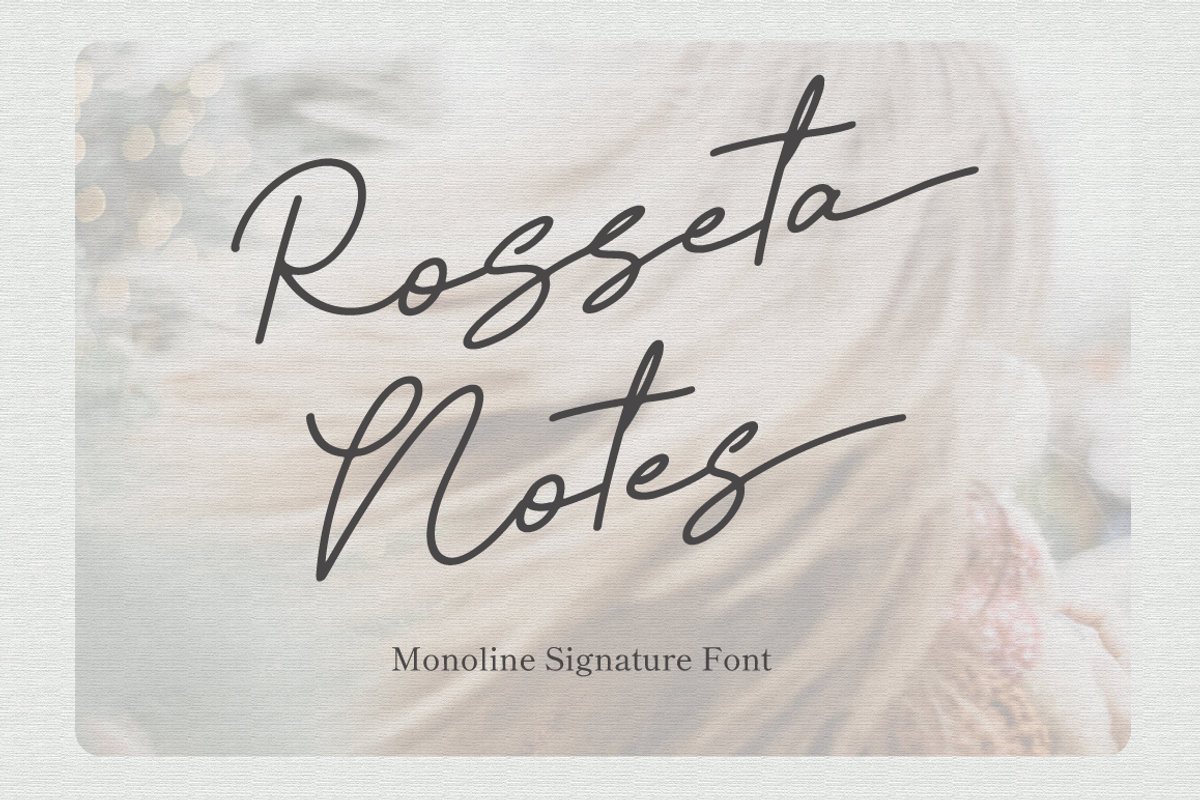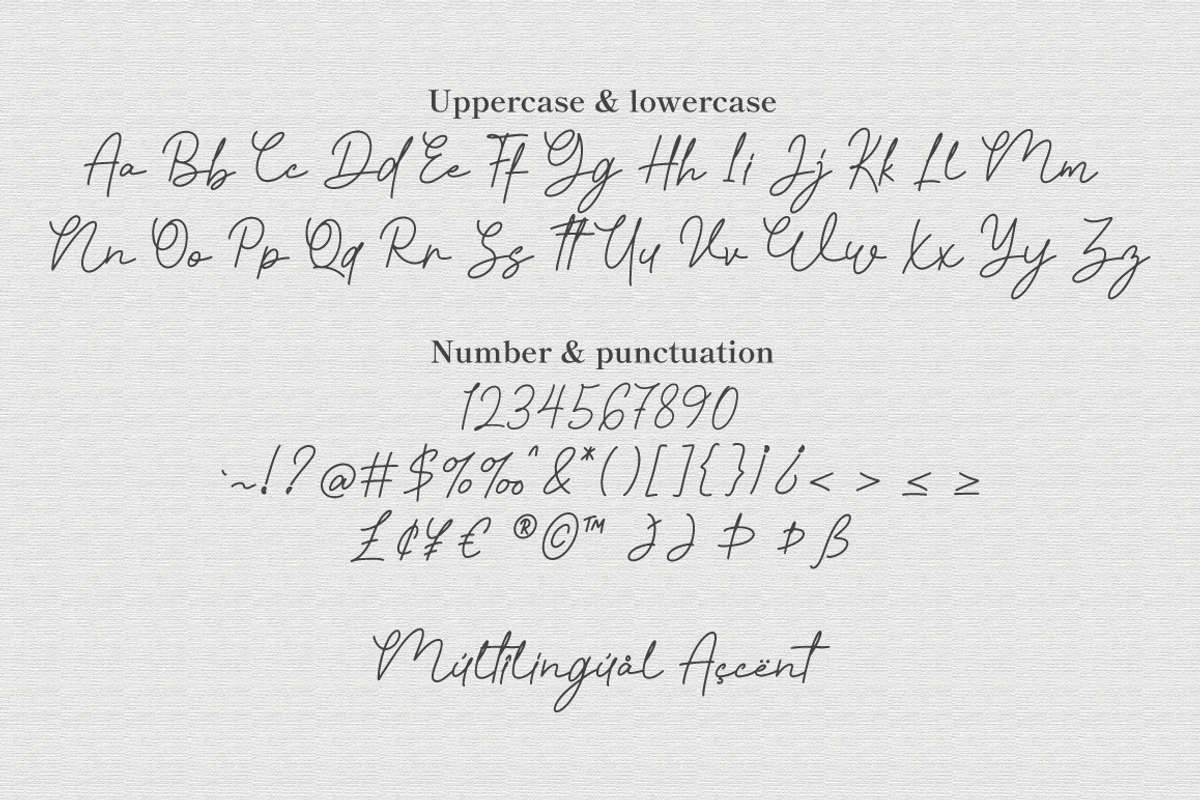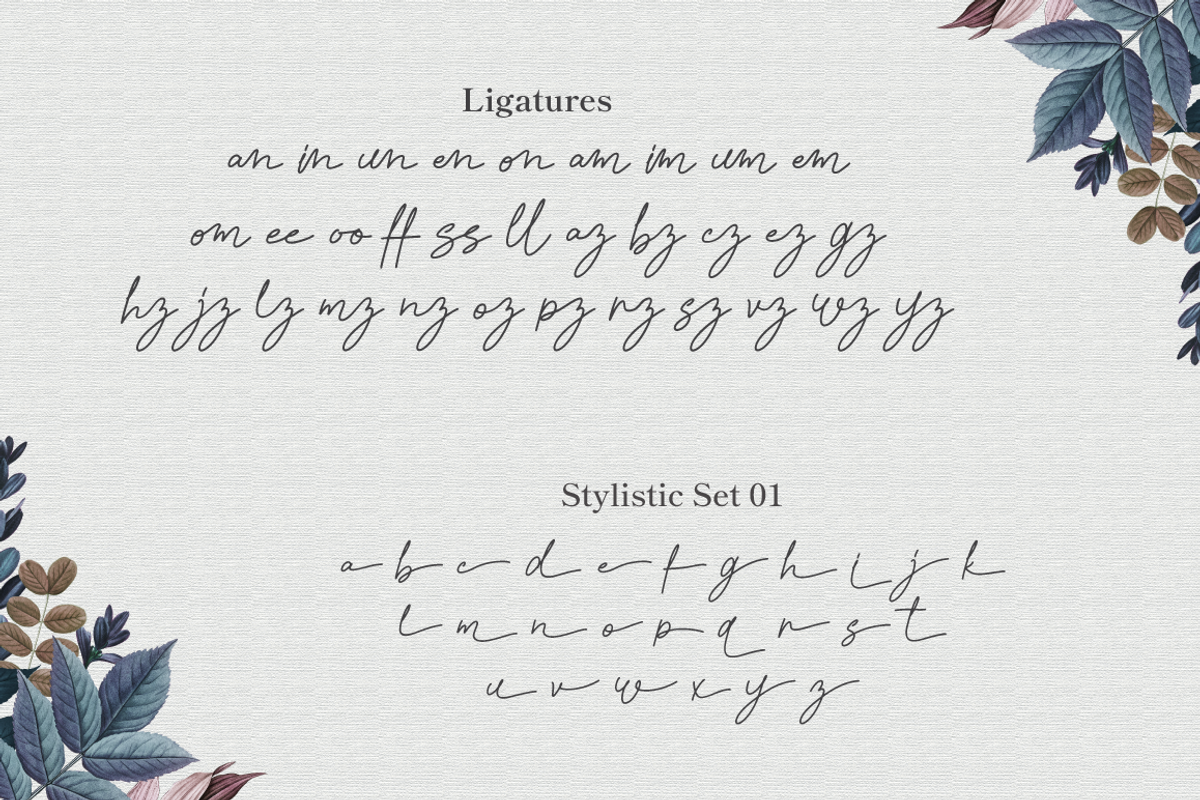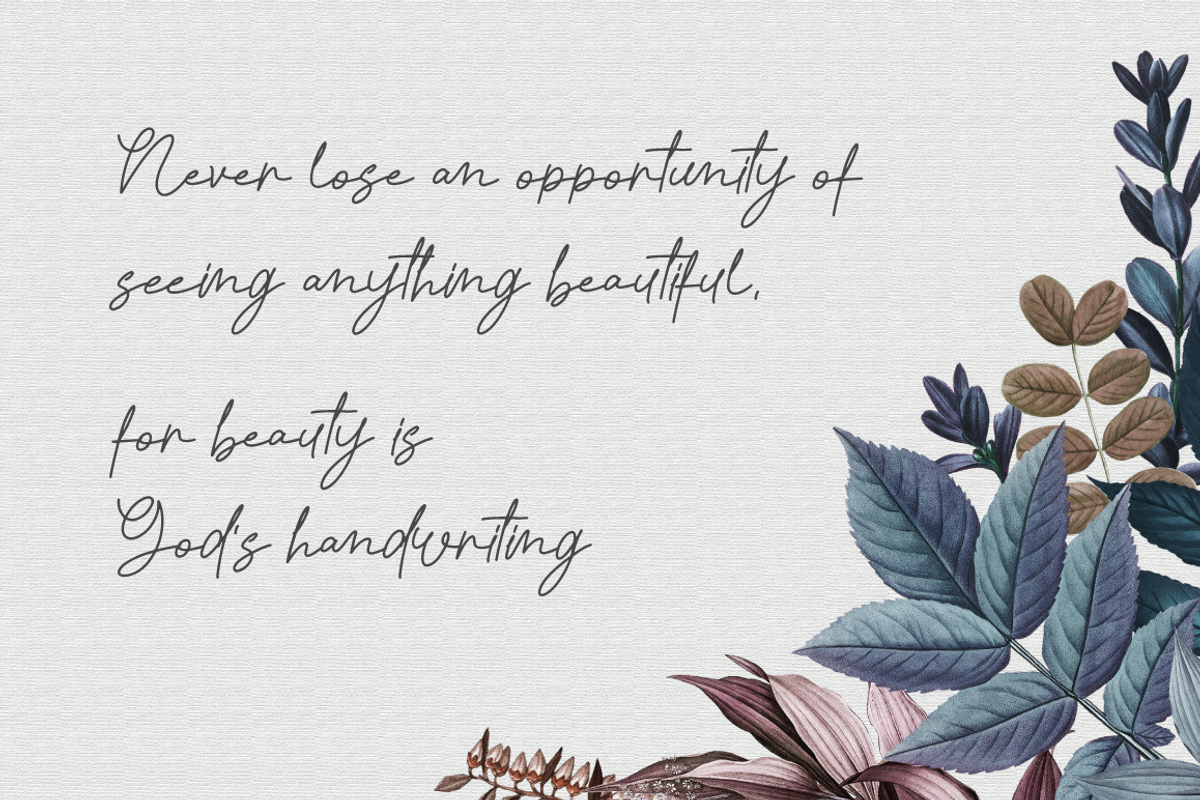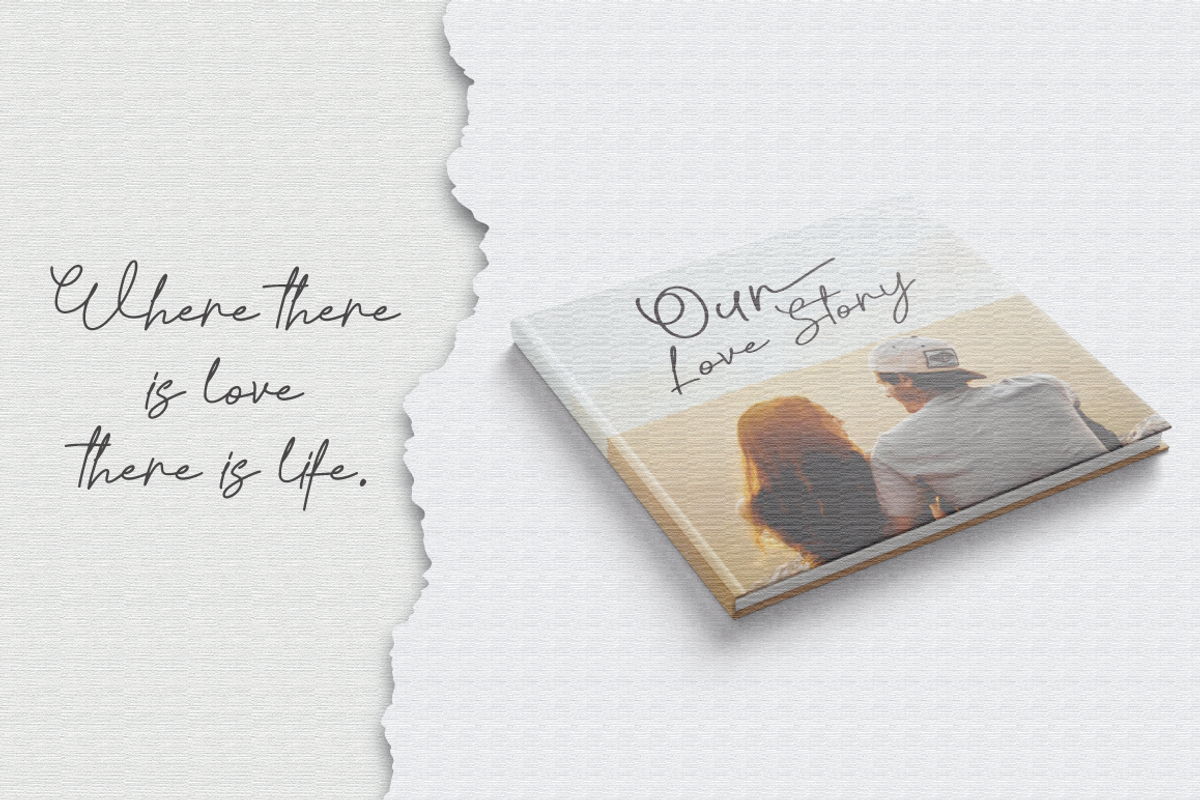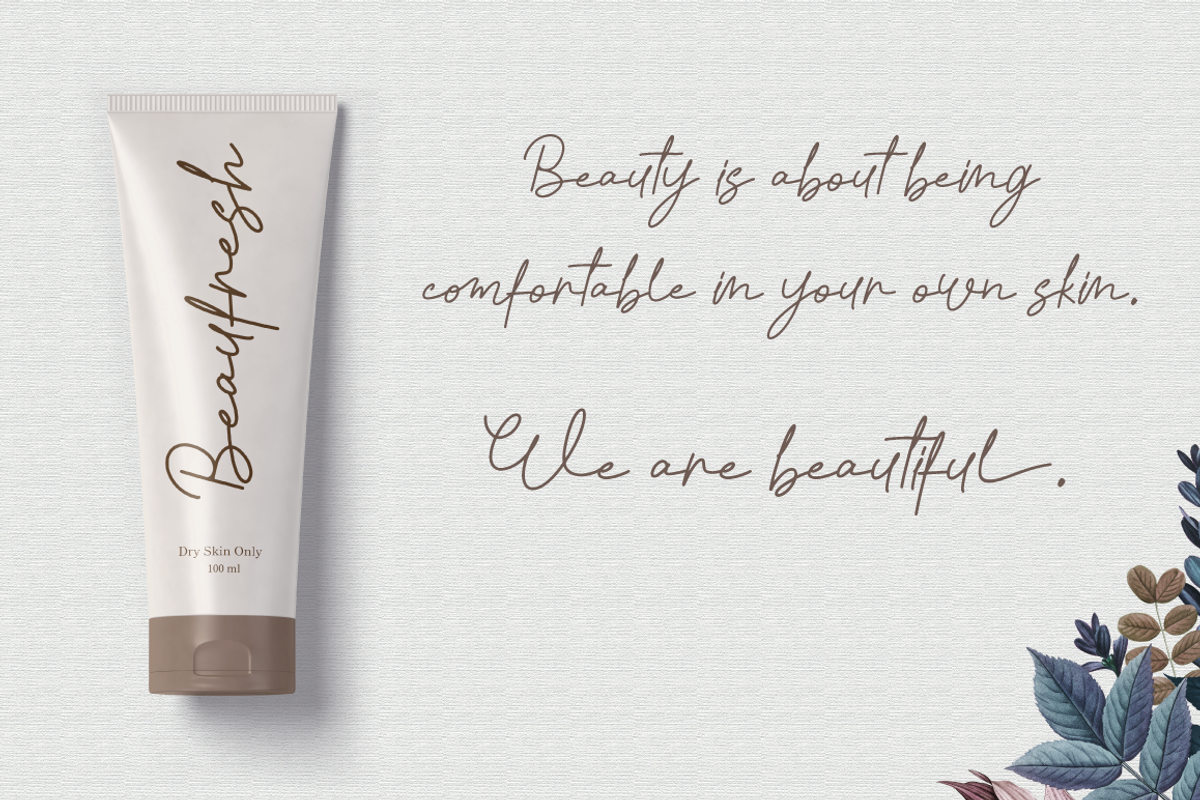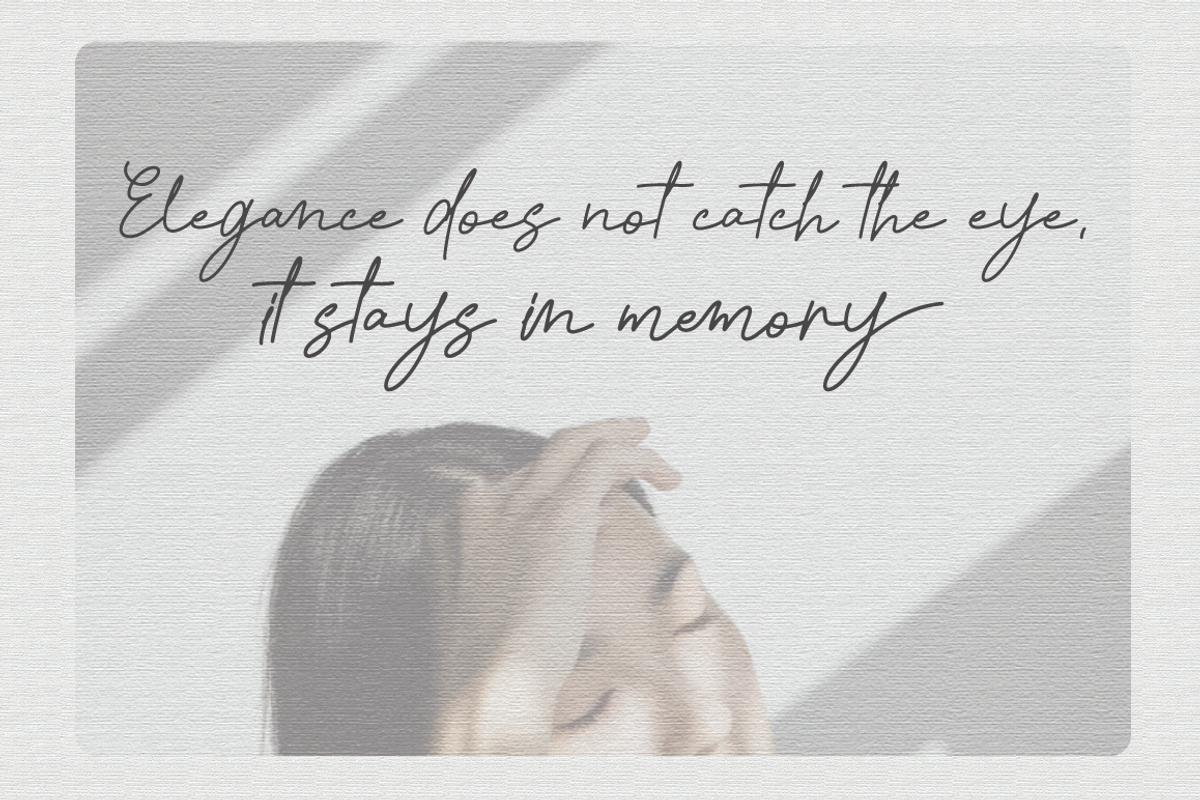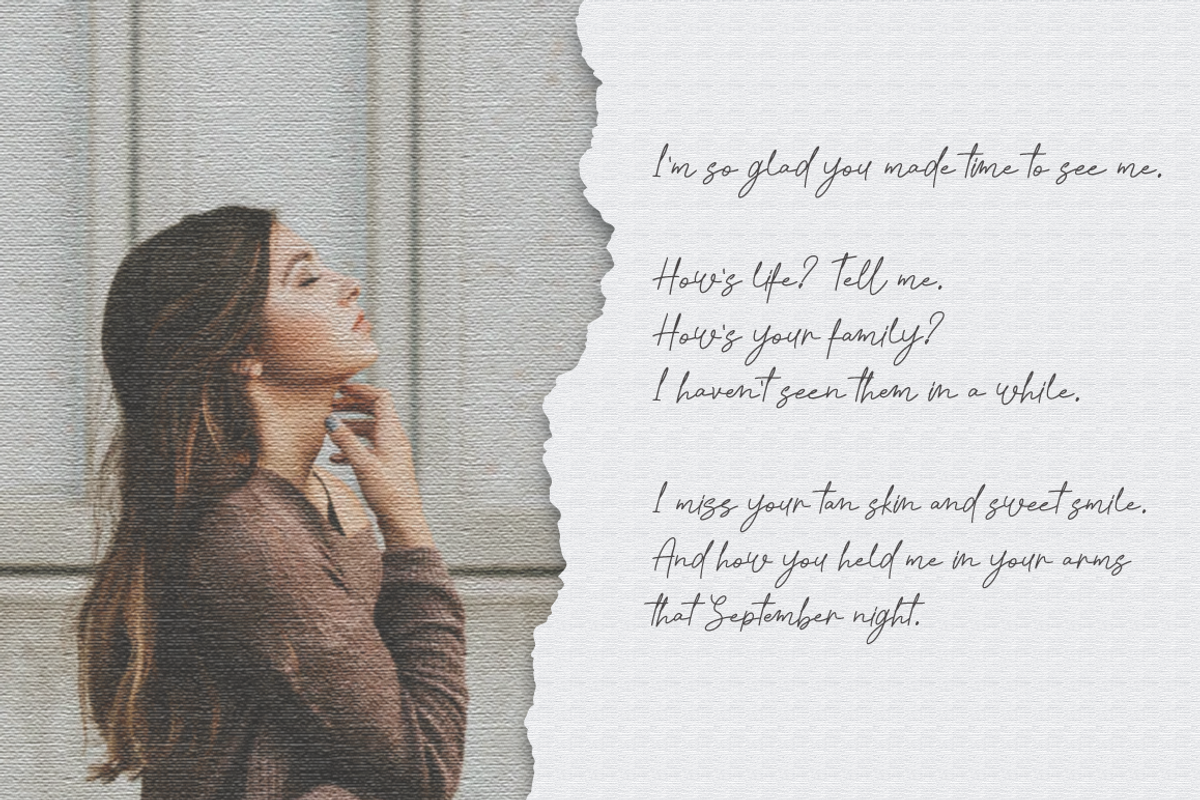
Rosseta Notes - Monoline Signature
Introducing Rosseta Notes - Inspired by handwritten font cursive, signature font word that perfect for any design project you have!
Rosseta Notes is perfect for winter sale design, branding, logo, invitation, stationery, wedding, product packaging, merchandise, monogram, blog design, game titles, cute style design, Book/Cover Title, movie poster, youtube thumbnail and more.
- numeral & punctuation
- Stylistic Set 1